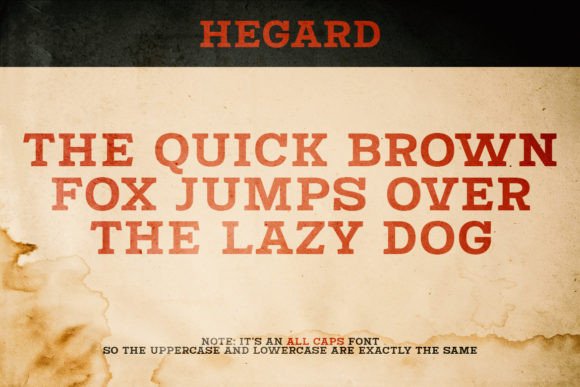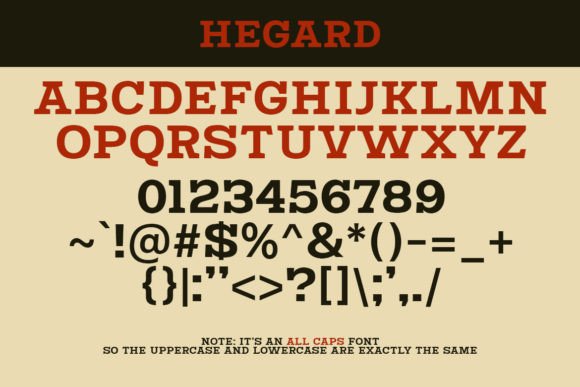
Hegard Font: Unleash Your Brave Voice with this Bold and Loud Typeface
In the world of graphic design, typography plays a crucial role in conveying messages and evoking emotions. A font can make or break a design, and for those looking to add a bold and loud statement to their project, Hegard Font is an excellent choice. Inspired by vintage boxing posters from the 80s era, Hegard Font is the perfect fit for designers and crafters seeking to bring out the brave voice inside them.
The Inspiration Behind Hegard Font
The 80s era was known for its vibrant and energetic vibe, and vintage boxing posters from that time period were no exception. These posters often featured bold typography, bright colors, and a sense of grit and determination. Hegard Font captures the essence of this era, bringing a loud and bold statement to the world of graphic design. With its rugged and edgy feel, Hegard Font is perfect for designers who want to add a touch of nostalgia and rebellion to their work.
Hegard Font is a versatile typeface that can be used for a wide range of design projects. Its bold and loud personality makes it perfect for:
- Logo Design: Create a lasting impression with a bold and eye-catching logo that showcases your brand’s personality.
- Branding: Add a touch of edginess to your brand’s identity with Hegard Font, perfect for companies that want to stand out from the crowd.
- Poster Design: Create striking posters that grab attention and leave a lasting impression.
- YouTube Thumbnail: Make your YouTube videos stand out with a bold and eye-catching thumbnail that showcases Hegard Font.
- Album Artwork: Add a touch of grit and determination to your music project with Hegard Font, perfect for album covers and music promotions.
- Book Cover: Create a bold and eye-catching book cover that showcases the theme and tone of your book.
Why Choose Hegard Font?
With so many fonts available, why choose Hegard Font? Here are just a few reasons why designers and crafters love this bold and loud typeface:
- Unique and Eye-Catching: Hegard Font is a one-of-a-kind typeface that grabs attention and leaves a lasting impression.
- Versatile: Use Hegard Font for a wide range of design projects, from logos and branding to posters and album artwork.
- Easily Readable: Despite its bold and loud personality, Hegard Font is easily readable, making it perfect for body text and headlines.
- High-Quality: Hegard Font is a high-quality typeface, carefully crafted to ensure that it looks great in any design project.
Tips for Using Hegard Font
To get the most out of Hegard Font, here are a few tips to keep in mind:
- Use it Sparingly: While Hegard Font is bold and loud, it’s best to use it sparingly to avoid overwhelming the design.
- Pair it with Other Fonts: Combine Hegard Font with other fonts to create a unique and eye-catching design.
Hegard Font is a bold and loud typeface that’s perfect for designers and crafters looking to add a touch of grit and determination to their work. Inspired by vintage boxing posters from the 80s era, Hegard Font is a unique and eye-catching font that’s sure to grab attention. Whether you’re working on a logo, branding, poster design, or any other project, Hegard Font is an excellent choice. So why not unleash your brave voice and try out Hegard Font today?